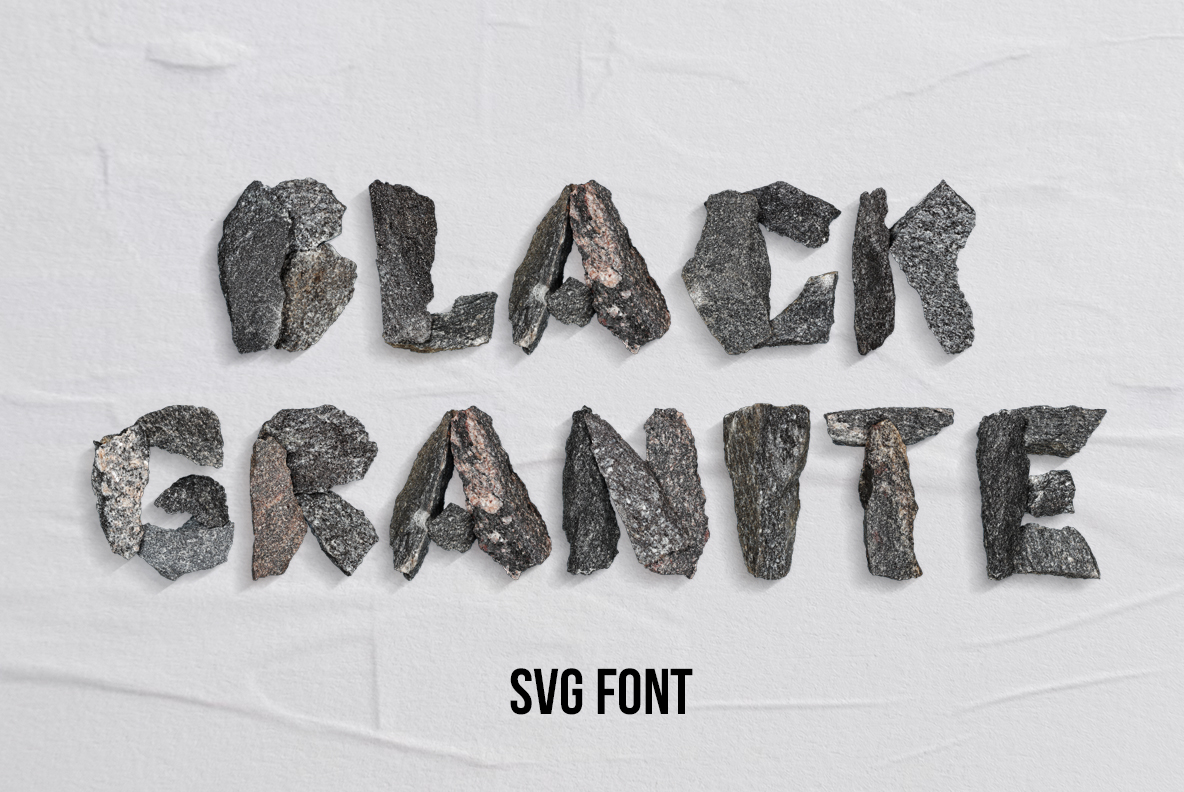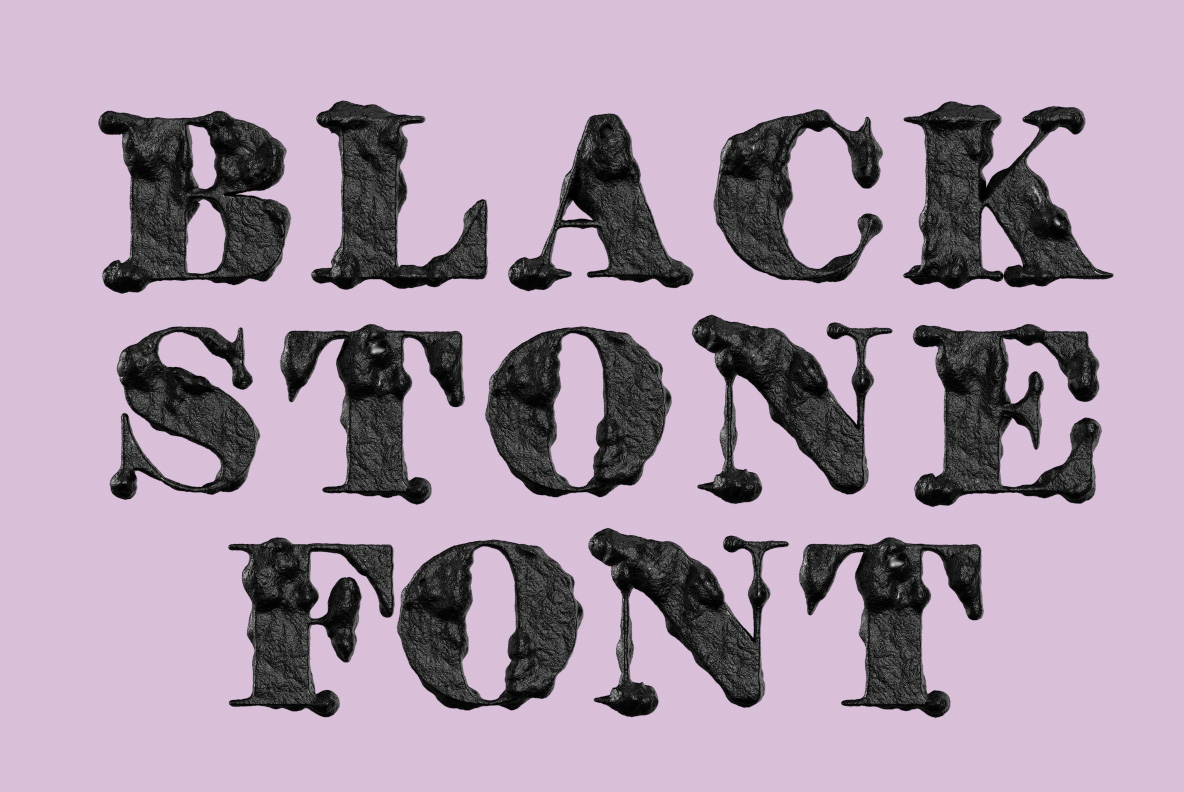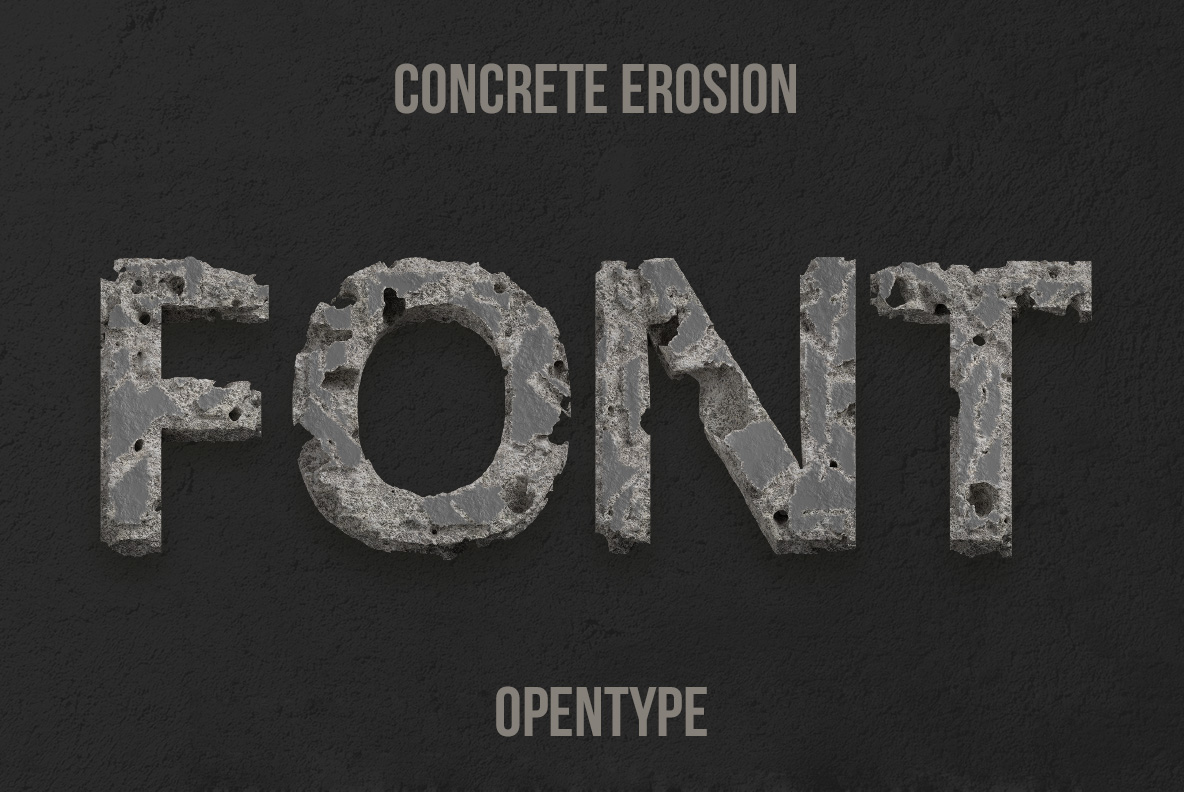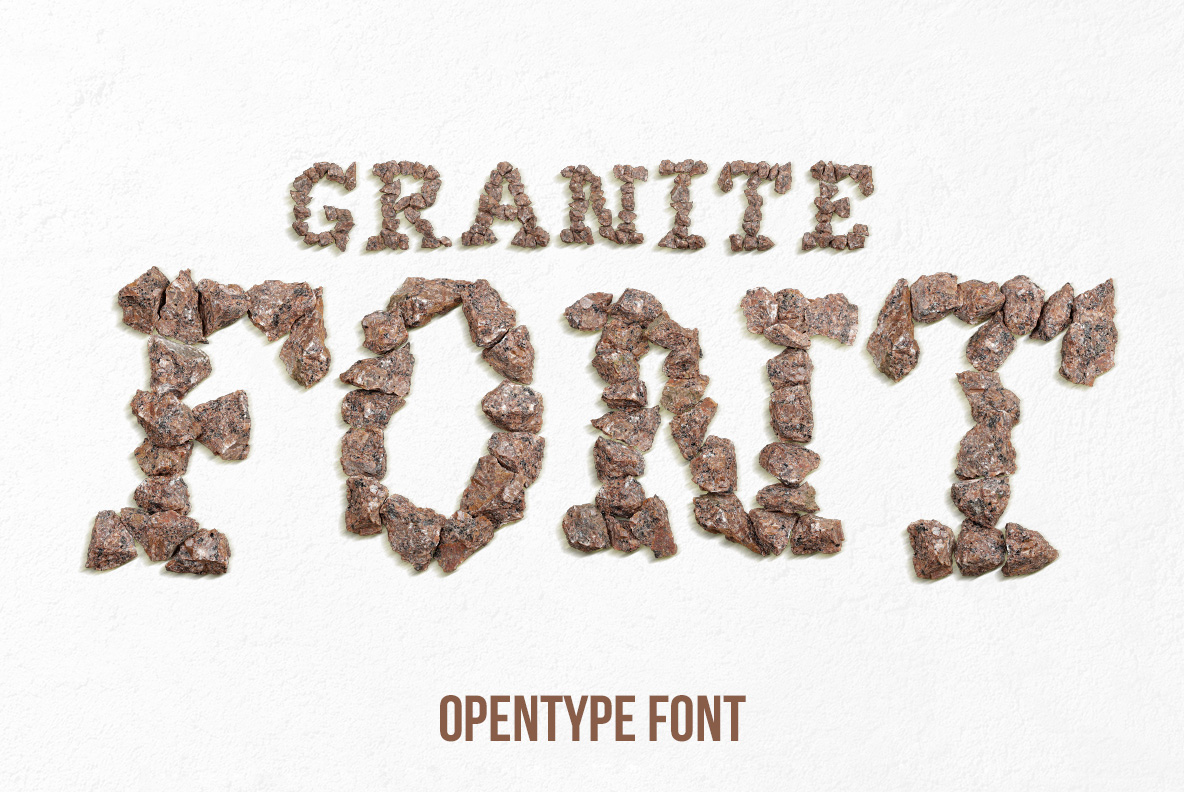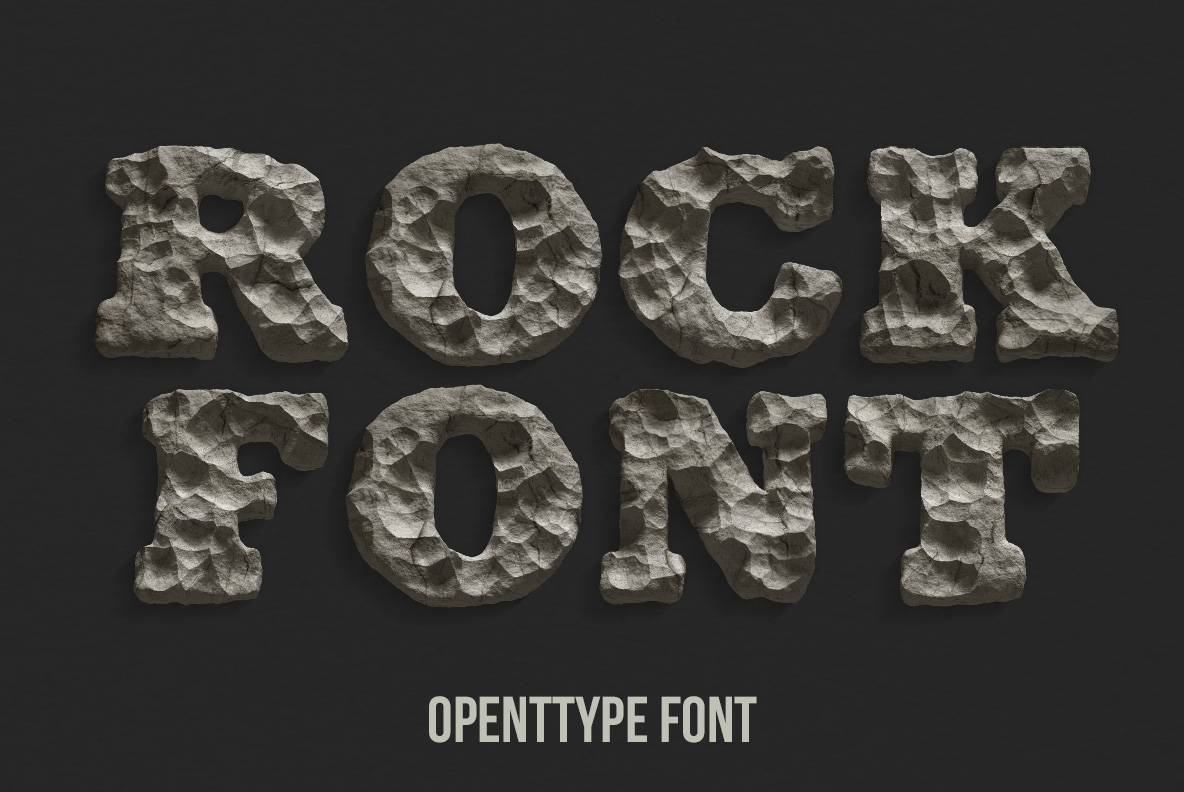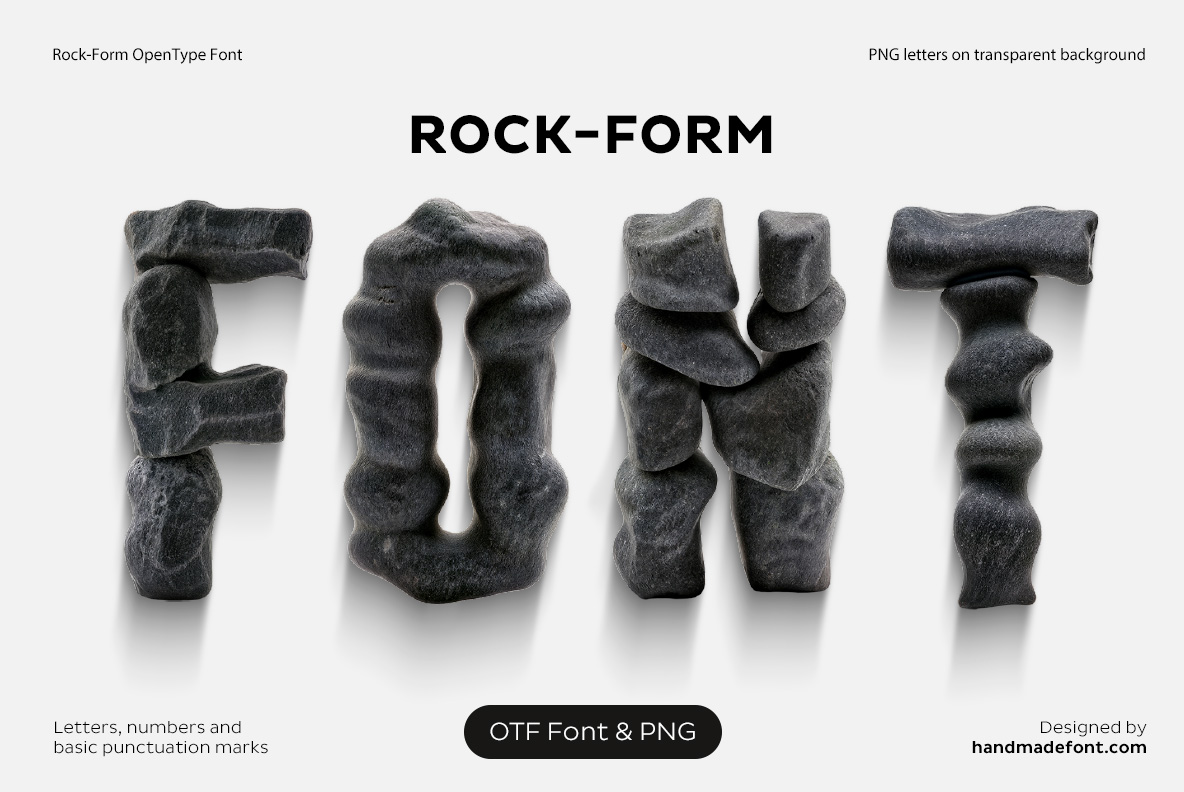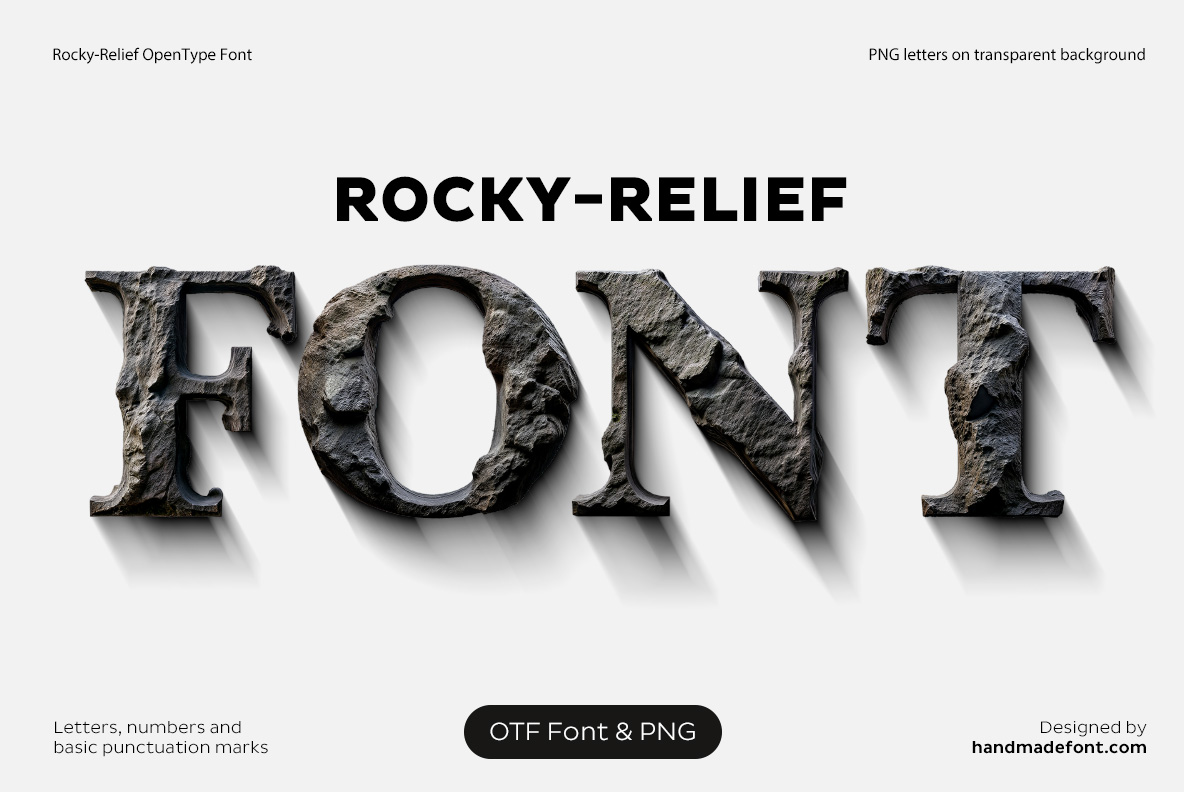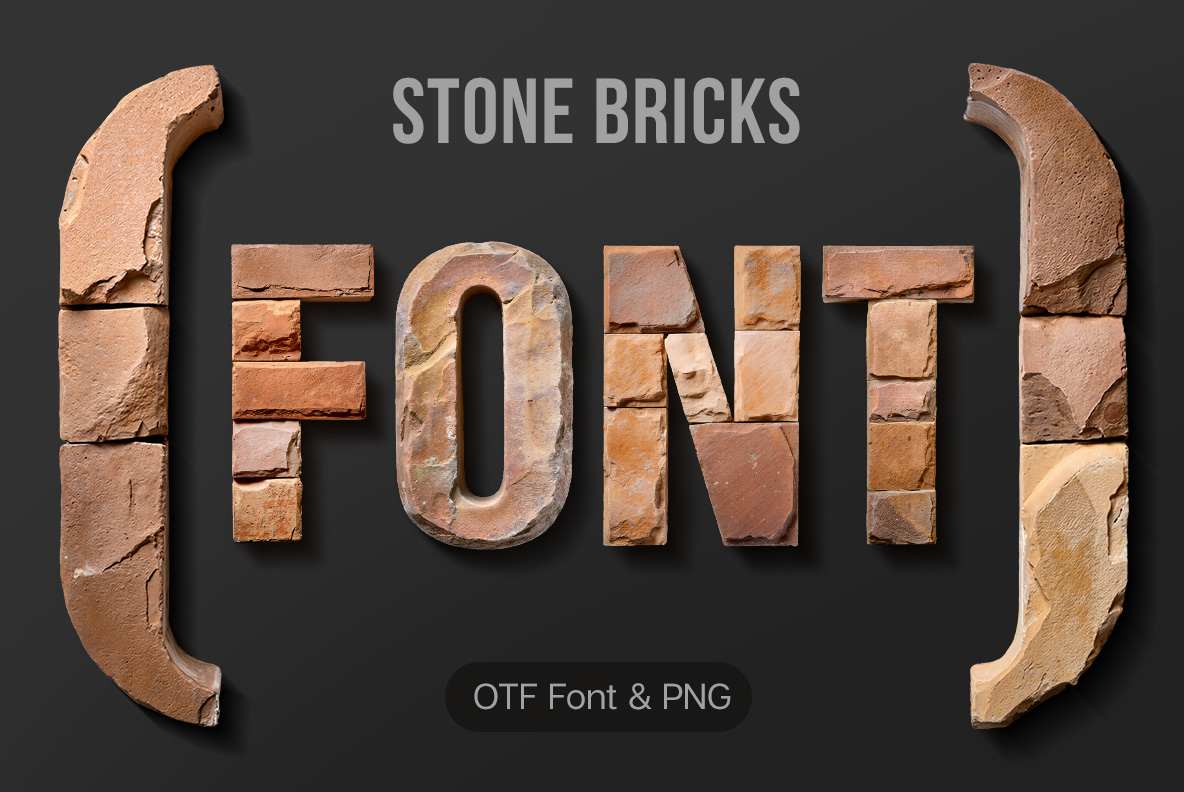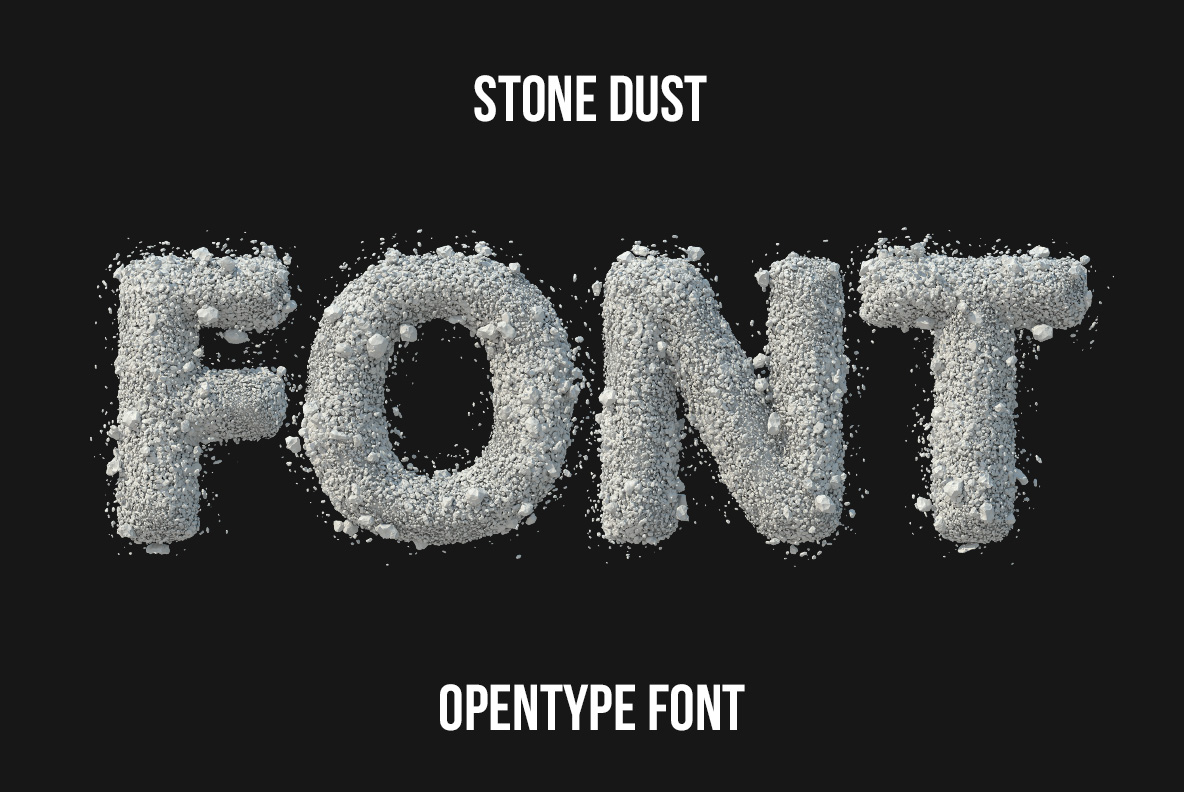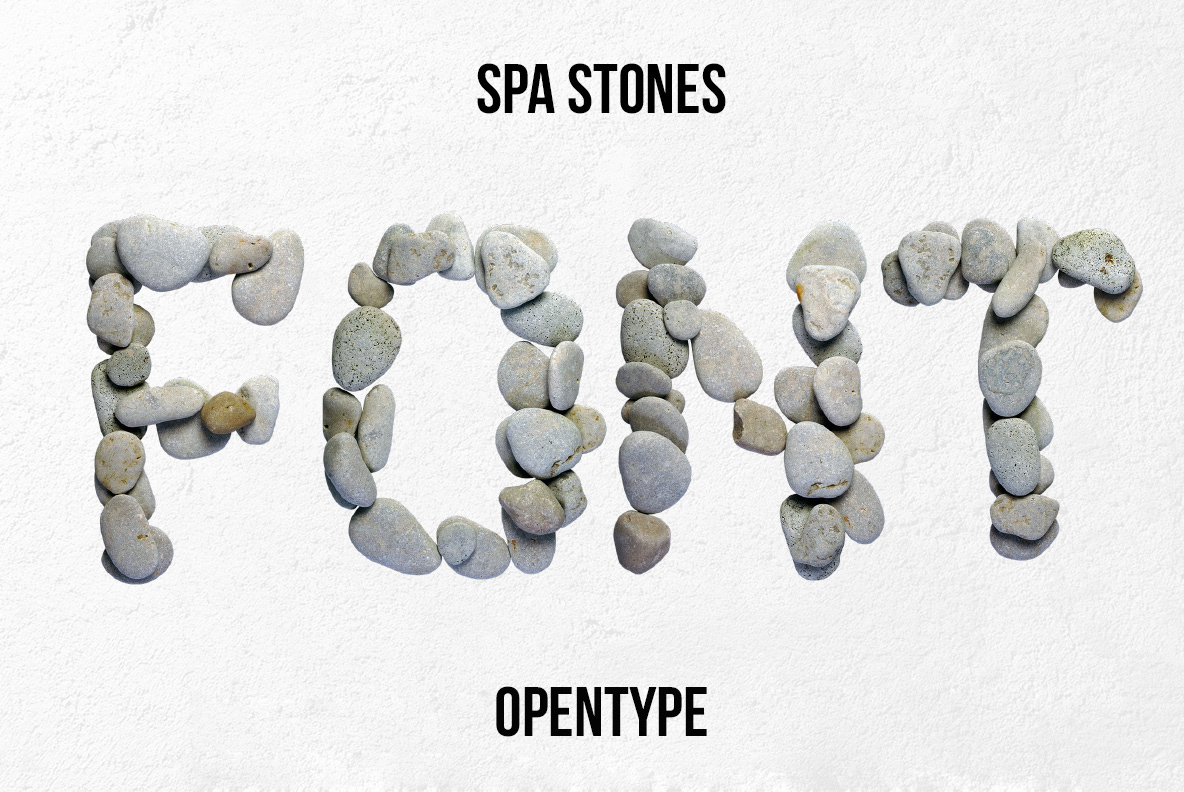
Stone Fonts – Rock, Granite & Marble Typefaces
Stone has finally learned to spell. Our Stone Fonts collection transforms granite, marble, concrete, pebbles, bricks and rugged rock into distinctive letterforms with real visual weight. Discover natural and architectural typography for branding, posters, packaging, editorial graphics and bold display design, from polished stone surfaces to erosion, moss, dust and rough geological textures.
Set Your Words in Stone
Rock can be polished, cracked, stacked, carved or slowly taken over by moss — and each version tells a different story. This collection brings those surfaces into typography, from monumental granite and marble to eroded concrete, pebbles, bricks and stone dust. Pick a font that gives your words the right weight, texture and geological personality.
Rocky Relief Font with rugged stone letters carved in deep rocky relief
Rocky Relief Font shapes rugged carved rock into monumental letters with strong natural depth and texture.
Rock Font with massive rugged stone letters formed from natural rock
Rock Font transforms heavy natural stone into bold lettering built for strong visual impact.
Concrete Erosion Font with damaged concrete letters and rough eroded surfaces
Concrete Erosion Font combines damaged concrete surfaces and eroded edges for raw architectural typography.
Black Granite Font with polished dark granite letters and crystalline mineral texture
Black Granite Font gives typography the weight, darkness and crystalline texture of polished black granite.
Rock Form Font with irregular stone shapes forming bold dimensional letters
Rock Form Font turns massive irregular rock shapes into sculptural letterforms with a geological character.
Granite Font with bold letters made from realistic speckled granite stone
Granite Font brings rough mineral texture and solid stone weight into powerful display typography.
SPA Stones Font with rounded letters assembled from smooth natural spa pebbles
SPA Stones Font builds rounded organic letters from smooth stones for calm, tactile and natural typography.
Stone Dust Font with rough fragmented stone letters covered in dusty mineral texture
Stone Dust Font combines fragmented mineral texture and dusty surfaces into mysterious three-dimensional lettering.
Black Stone Font with dense black rock letters and rough natural stone surfaces
Black Stone Font uses deep dark rock surfaces to create bold, dense and dramatic stone lettering.
Stone Bricks Font with letters constructed from individual rough stone blocks
Stone Bricks Font constructs sturdy letterforms from individual stone blocks for an architectural visual style.
Mosaic Font with letters assembled from small black and white stone-like fragments
Mosaic Font assembles small stone-like fragments into decorative letters with intricate surface detail.
Marble Bas-relief Font with carved dimensional marble letters and classical ornamental detail
Marble Bas-relief Font brings classical carved marble and ornamental relief into elegant dimensional lettering.
Stone Stack Font with letters built from layered rocks and naturally shaped pebbles
Stone Stack Font builds bold organic letters from layered rocks, pebbles and naturally irregular stone forms.
Moss on Rock Font with rugged stone letters covered in natural green moss
Moss on Rock Font combines rugged stone with living green moss for earthy typography full of natural character.
Stone Fonts That Give Typography Physical Weight
Stone Fonts turn rock, granite, marble, concrete and mineral textures into expressive object-based typography. Instead of simulating stone with a simple digital texture, these designs make the material itself part of the letterform. Rough rock creates irregular silhouettes, granite introduces dense mineral surfaces, while marble brings smoother sculptural details. As a result, every alphabet feels physical, substantial and visually different from conventional typography.
From Granite and Concrete to Marble and Moss
This collection approaches stone lettering from many directions. Some fonts appear carved from massive blocks, while others use erosion, dust, bricks, pebbles or stacked rocks to build their characters. Smooth spa stones create softer organic shapes, whereas black granite and dark rock offer a heavier visual presence. Moss-covered stone adds living texture and natural color, while marble bas-relief connects contemporary object typography with classical sculpture and architectural ornament.
Natural Lettering for Strong Visual Design
Stone typography works especially well when a design needs permanence, strength or a direct connection to natural materials. These fonts can bring physical texture to posters, packaging, branding, editorial graphics and title design. They are also useful for architecture, outdoor projects, travel graphics, environmental themes, cultural events and visual identities where ordinary flat lettering would feel too neutral.
Object-Based Stone Typography by Handmadefont
Handmadefont treats letters as physical objects rather than flat graphic symbols. The Stone Fonts collection continues that approach by transforming recognizable natural and architectural materials into readable alphabets. Many designs combine an installable OpenType font with separate PNG characters on transparent backgrounds, allowing designers to type normally or construct more detailed custom compositions while preserving the dimensional stone texture of each character.